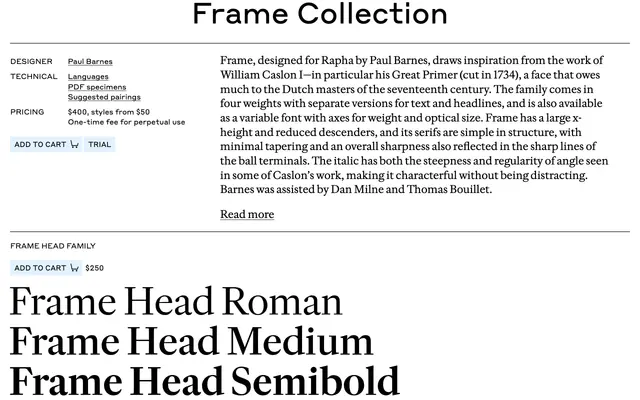
Frame
Commercial Type · Paul Barnes, Dan Milne, Thomas Bouillet · 2023
A sharp Caslon-influenced serif by Paul Barnes, originally drawn for Rapha, with head and text optical sizes plus a variable cut.
A transitional serif by Paul Barnes, designed for Rapha and rooted in William Caslon I, particularly his 1734 Great Primer with its Dutch seventeenth-century DNA. The family comes in four weights with separate Head and Text cuts and a variable version with axes for weight and optical size. Frame has a large x-height and reduced descenders, with simple, minimally tapered serifs and a matching sharpness in the ball terminals. The italic carries the steepness and regularity of angle seen in some of Caslon's own work, characterful without being distracting. Barnes was assisted by Dan Milne and Thomas Bouillet.
Commercial Type describe Frame as a transitional serif drawing on William Caslon I, in particular his 1734 Great Primer, with Dutch seventeenth-century influence behind the cut.